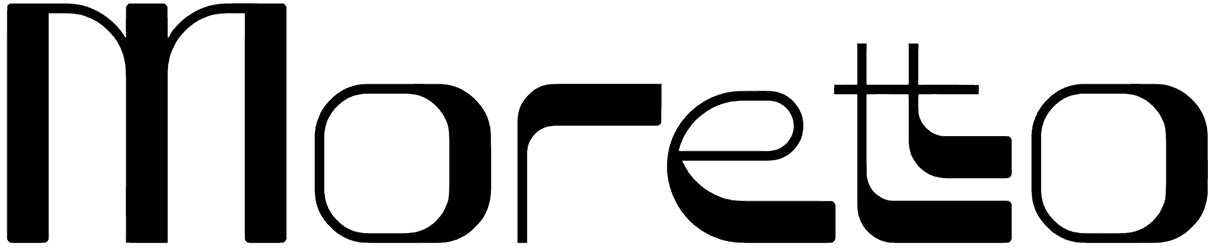
Moretto Font
Retro styles are always popular and special, and using them in creative designs can be an interesting idea. This retro font, which is called Moretto, with its cool lettering, is a distinct choice for your ideas. You can…
Retro styles are always popular and special, and using them in creative designs can be an interesting idea. This retro font, which is called Moretto, with its cool lettering, is a distinct choice for your ideas. You can set Moretto font on your intended layouts, such as posters, webs, games, apparel, or the like, and give them a striking vibe.